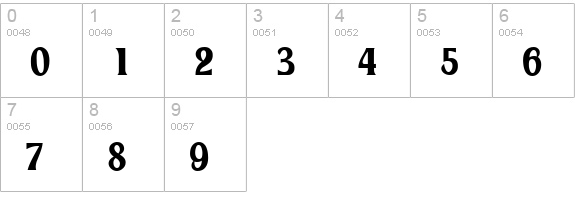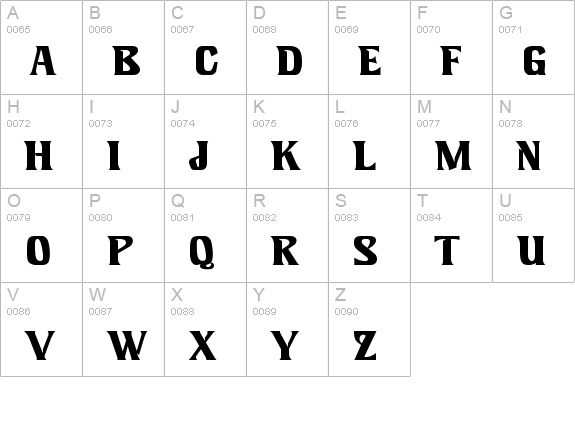
LookingGlass-Regular Font Details
LookingGlass-Regular is the standard, neutral variant in the LookingGlass typeface family \xE2\x80\x94 well suited to general body text, paragraphs, and standard typographic work.
LookingGlass-Regular is a versatile and elegant font that combines classic and modern elements seamlessly. Its clean lines and graceful curves make it perfect for a wide range of design projects, from branding to invitations to web design. The font exudes a sense of sophistication and professionalism while retaining a touch of playfulness. What sets LookingGlass-Regular apart is that it is available for free download at FontsMarket.com. This means you can easily access this beautiful font without any cost, making it a valuable addition to your font collection. Whether you're a designer looking for a new typeface to inspire your creativity or a business owner in need of a polished font for your marketing materials, LookingGlass-Regular is a fantastic choice that won't break the bank. Download it today and elevate your designs with this stunning and versatile font.